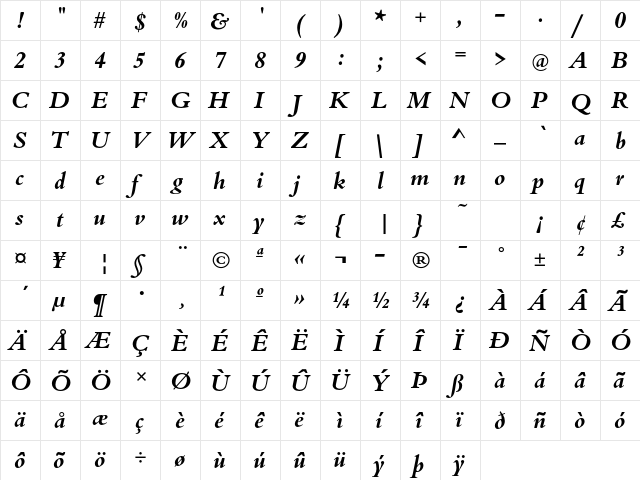
Bergamo Std Bold Italic Font Preview
Design Context for Bergamo Std Typeface
Bergamo Std takes a measured approach to typography — its balanced proportions and neutral character make it a reliable workhorse for both digital and print work. The dynamic lean of this cut emphasises speed and emphasis in any layout. Its bold stroke weight gives it real presence on the page.
Pro Tip: Try Bergamo Std for annotation and caption copy alongside an upright companion — the contrast in angle creates a dynamic but ordered typographic system.